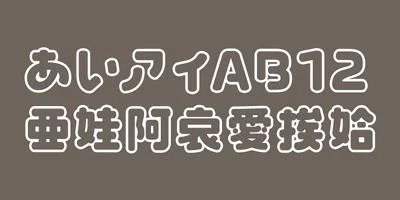
VDL-MegaMaru Pop Font
VDL-MegaMaru Pop Font is a fun, bubbly, and ultra-playful typeface that radiates cuteness and energy. With its rounded forms, bold strokes, and soft, approachable personality, this font is perfect for children’s products, kawaii branding, pop culture graphics, packaging, character merch, and anything that needs a joyful, lighthearted touch.
The “Maru” in its name (which means “round” in Japanese) is no joke—VDL-MegaMaru Pop Font embraces circularity with full enthusiasm. Every character feels friendly, happy, and full of motion, making it ideal for headlines, logos, stickers, and posters where you want to express cheer and charm.
Despite its adorable vibe, the font is also designed with clarity and structure in mind. It’s legible and well-balanced, meaning it can handle playful designs while still keeping your message readable and clean.
VDL-MegaMaru Pop is more than a font—it’s a personality in type. Round, radiant, and full of good vibes, it brings a dose of happiness to every letter you type.